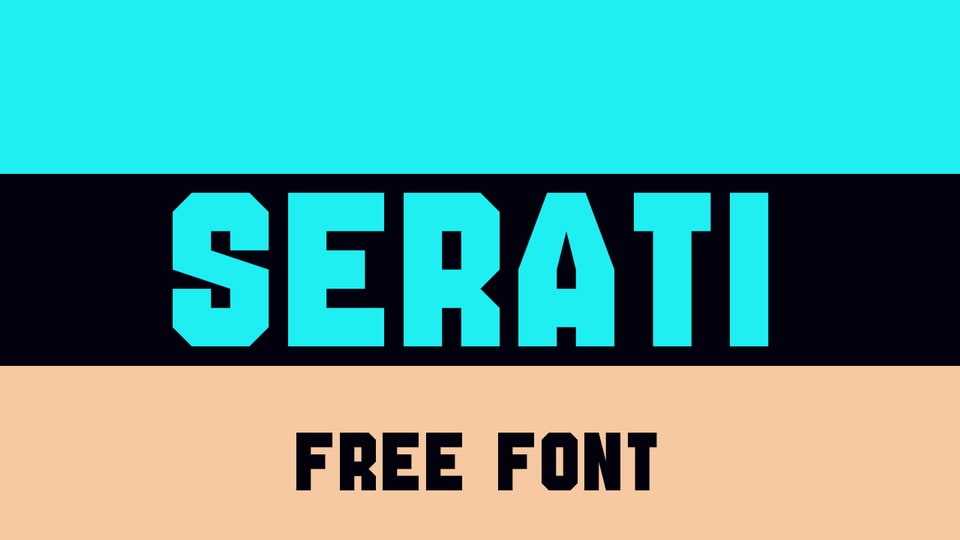
Download Serati font, a bold and strong blocky display typeface inspired by classic college sports typography. This typeface evokes the spirit of vintage athletic uniforms.